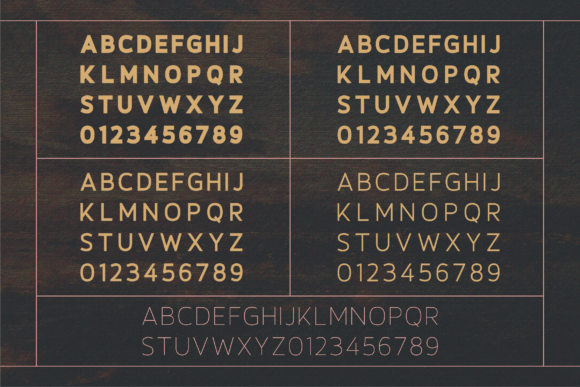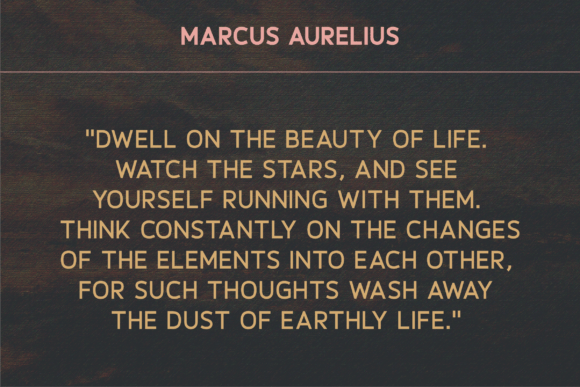
Introduction to Penthome Font
As designers, we’ve all been there – staring at a blank canvas, trying to bring our creative vision to life. The right font can make all the difference. For me, it was a late-night session, surrounded by countless options, until I stumbled upon the Penthome Font. Its sleek, modern design immediately caught my attention, and I knew I had to learn more.
The Penthome Font is a game-changer for designers. Its versatility and adaptability make it an invaluable resource for any creative project. With its clean, geometric aesthetic and range of weights, it’s the perfect choice for branding, logos, and headlines that demand a modern and professional look.
Penthome Font
- High-quality design resource ideal for creative projects and professional applications.
- Designed with a clean and modern aesthetic, making it suitable for a wide range of creative projects and applications.
Honest Review: Penthome Font
I recently stumbled upon the Penthome Font, a design resource that has been making waves in the creative community. As a designer, I was excited to put it to the test and see if it lives up to the hype.
What works well: ✨ The Penthome Font is incredibly versatile, with a wide range of uses from headings to body text. It’s also incredibly easy to customize, making it a great choice for designers who like to have control over every detail. The font is also available for free download, making it a great addition to any design project.
Some limitations: ⚠️ The Penthome Font doesn’t come with a lot of different styles, which can make it feel a bit one-dimensional at times. Additionally, the font doesn’t have a lot of bold or italic options, which can be limiting for designers who like to emphasize certain text.
Overall, I’m impressed with the Penthome Font. It’s a high-quality design resource that’s perfect for designers who are looking for a simple, yet effective font to add to their creative project. With its transparent background and free download option, it’s a great choice for designers who want to keep things easy and affordable.
- Perfect for headings and body text
Penthome Font: A High-Quality Design Resource
For presentations and documents, Penthome Font is a great choice. You can use it to create headings, titles, and body text that stands out from the rest. With a free download available, you can easily integrate the font into your PowerPoint or Word project.
Getting the Most Out of Penthome Font
To get the most out of Penthome Font, experiment with different font sizes, colors, and styles. Use it in conjunction with other design elements to create a unique and visually appealing design. You can also use it in common use cases such as creating invitations, business cards, or social media graphics.
Penthome Font is a versatile design resource that can be used in a variety of creative projects. Some common use cases include:
- Invitations and event materials